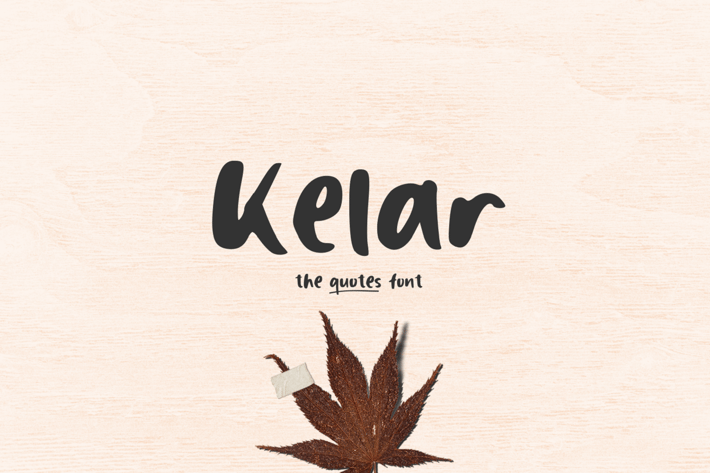
Kelar - The Quotes Font
Kelar - The Quotes Font, it’s perfect for logos, name card, magazine layouts, invitations, headers, or even large-scale artwork.